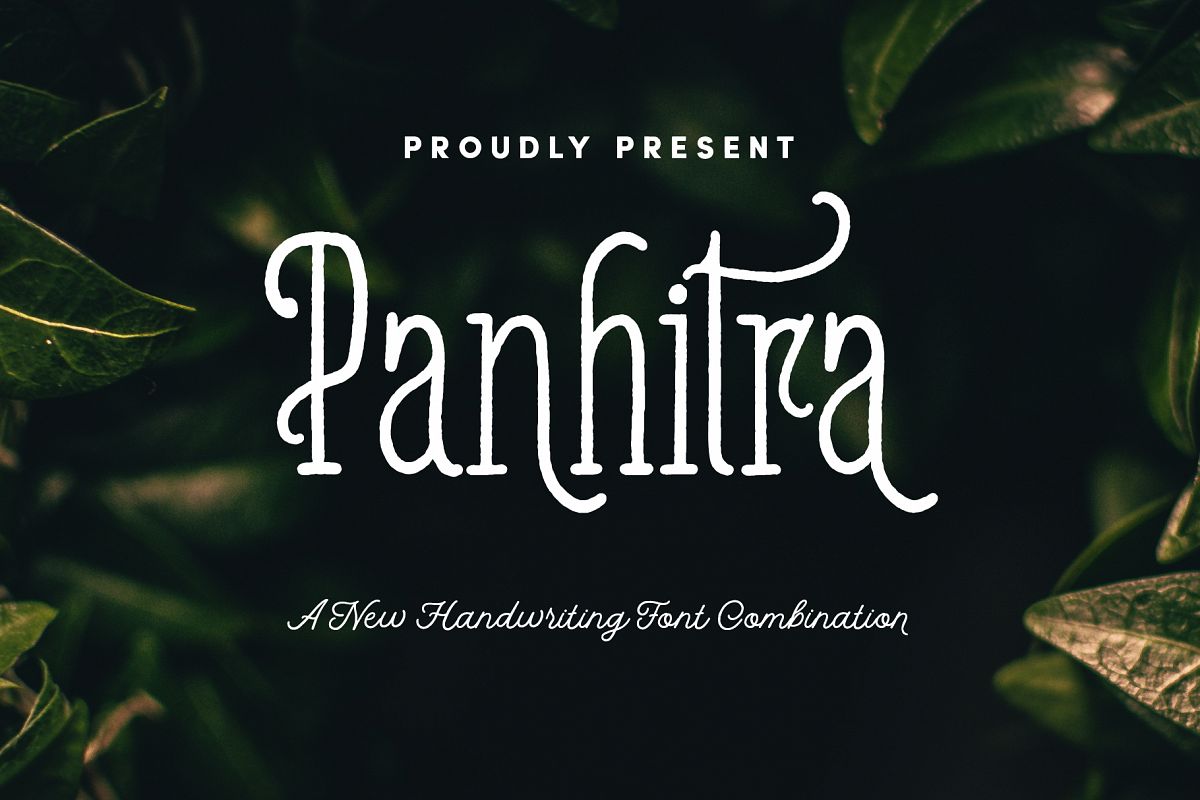
Panhitra Font Family
Panhitra-Sans
Panhitra-Script
Panhitra-Slab
Say Hello to our new font family Panhitra
Panhitra is a brand new font collection from our typefoundry.
Includes 3 fonts that have different styles but perfectly paired when
used together. Every single character crafted carefully, this is a high
quality handmade font. The rough edge make the font is look so classy
and real handwriting. This font family also offered alternate character,
so you can personalize your design.
Font Feature
• Alternate character